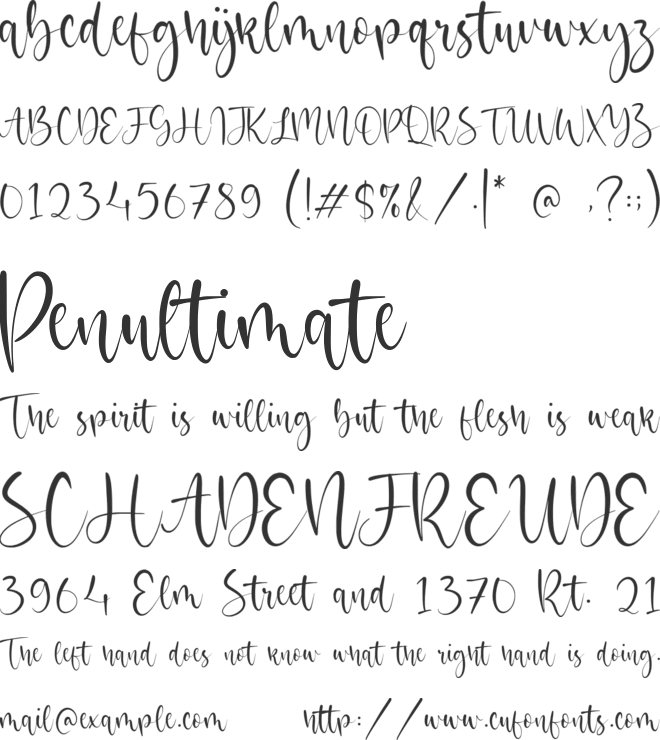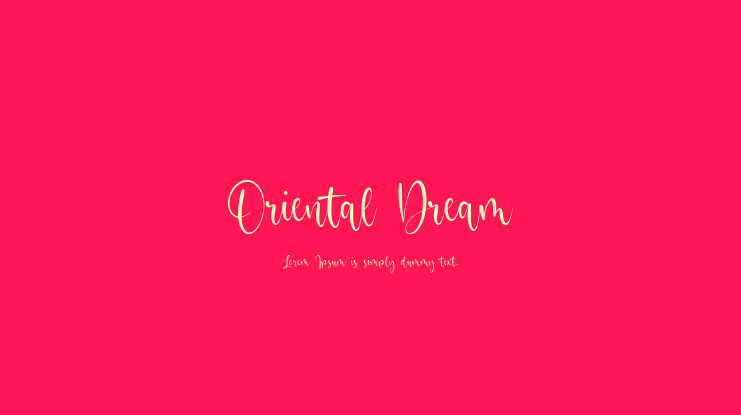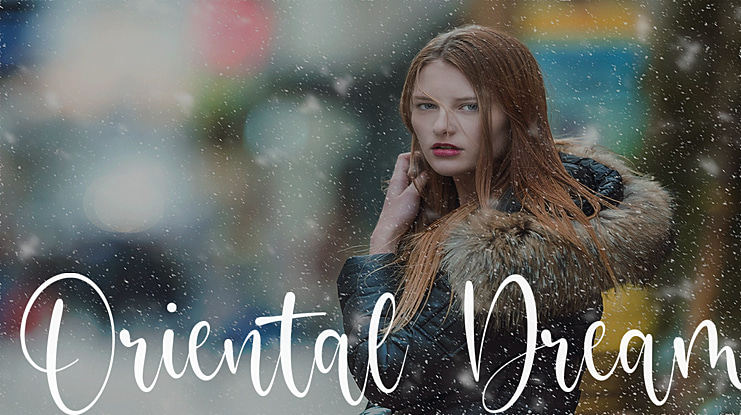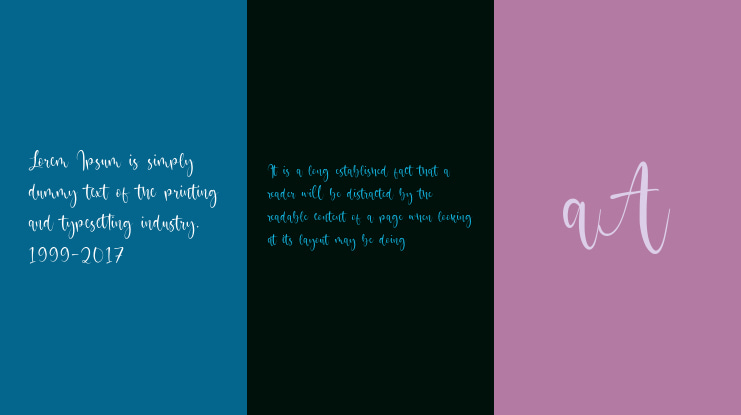
Oriental Dream Font
Introducing by Letterative Studio : Oriental Dream Font
Oriental Dream is a Modern Calligraphy Font
Oriental Dream is perfect for product packaging, branding project, megazine, social media, wedding, or just used to express words above the background.
Oriental Dream also multilingual support